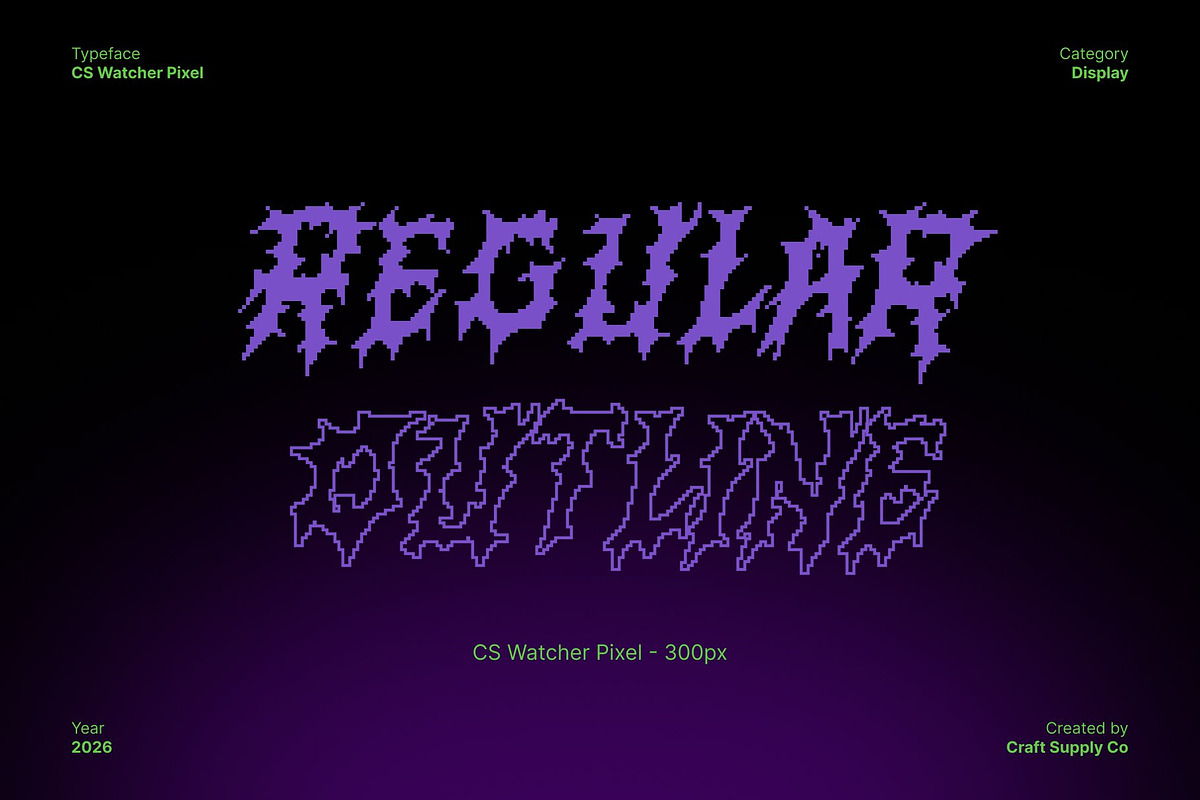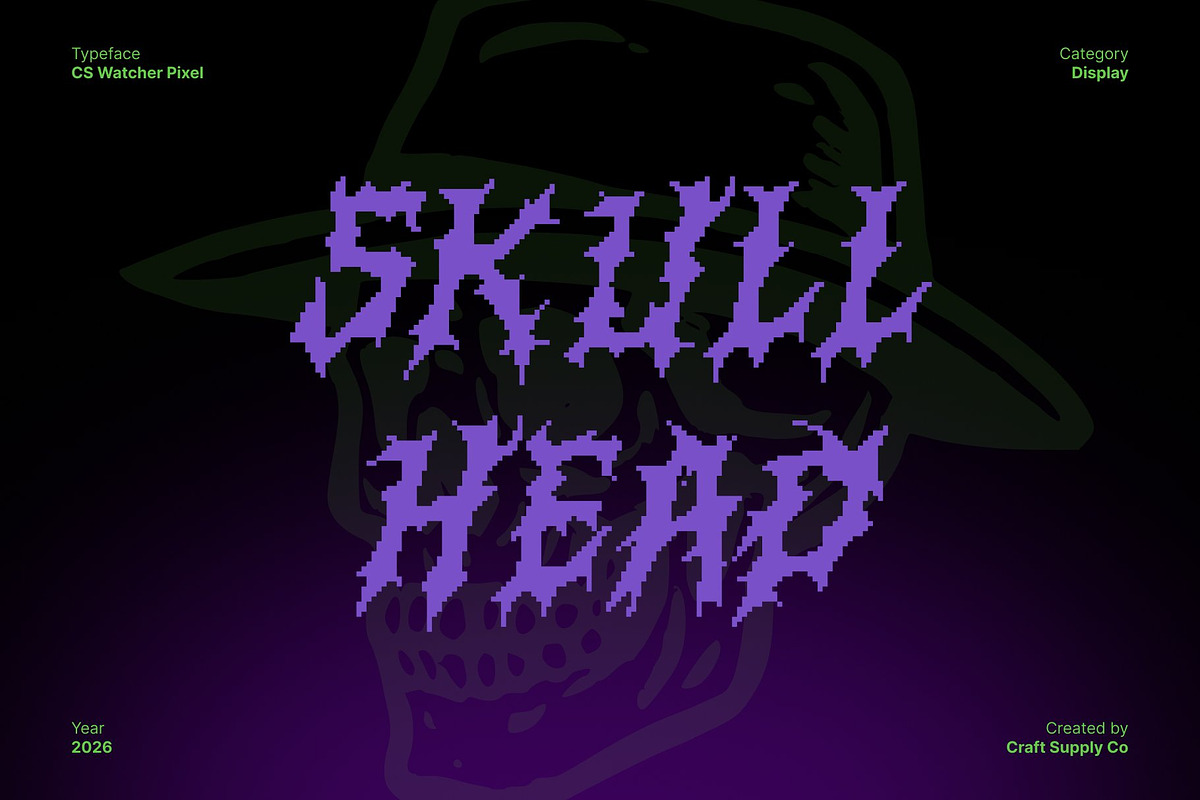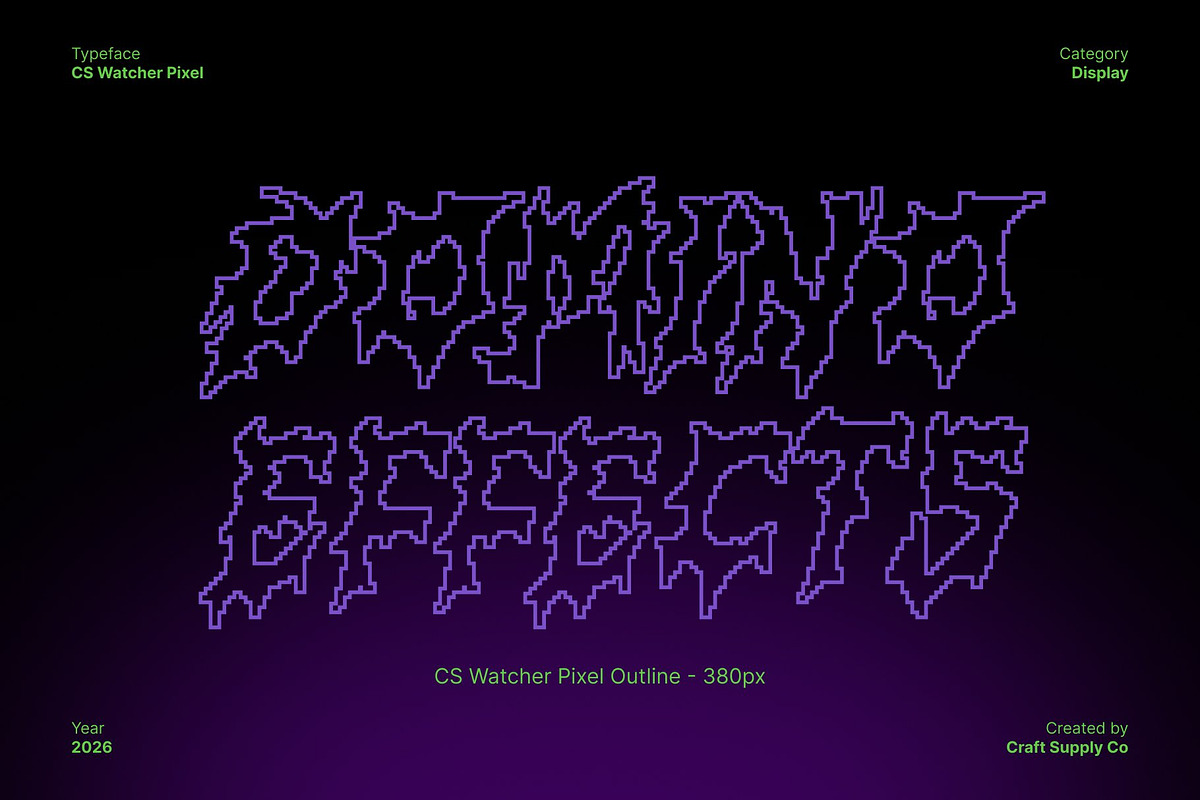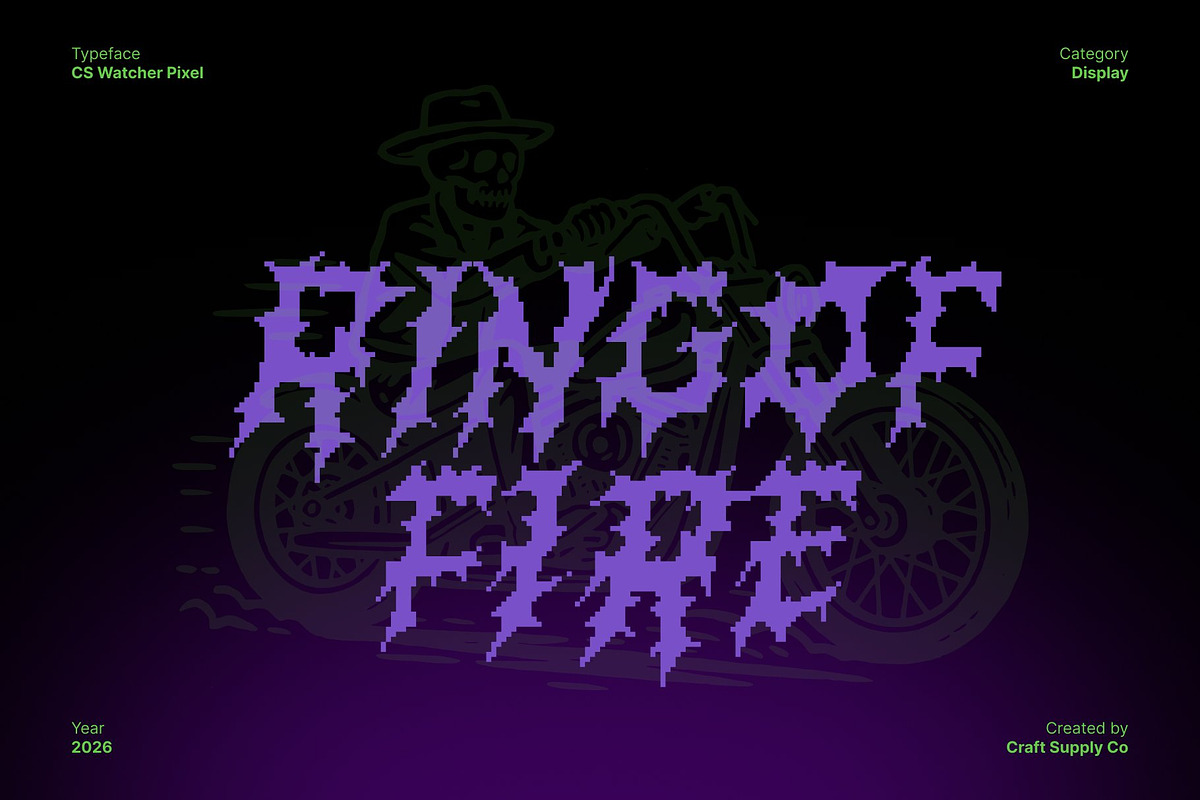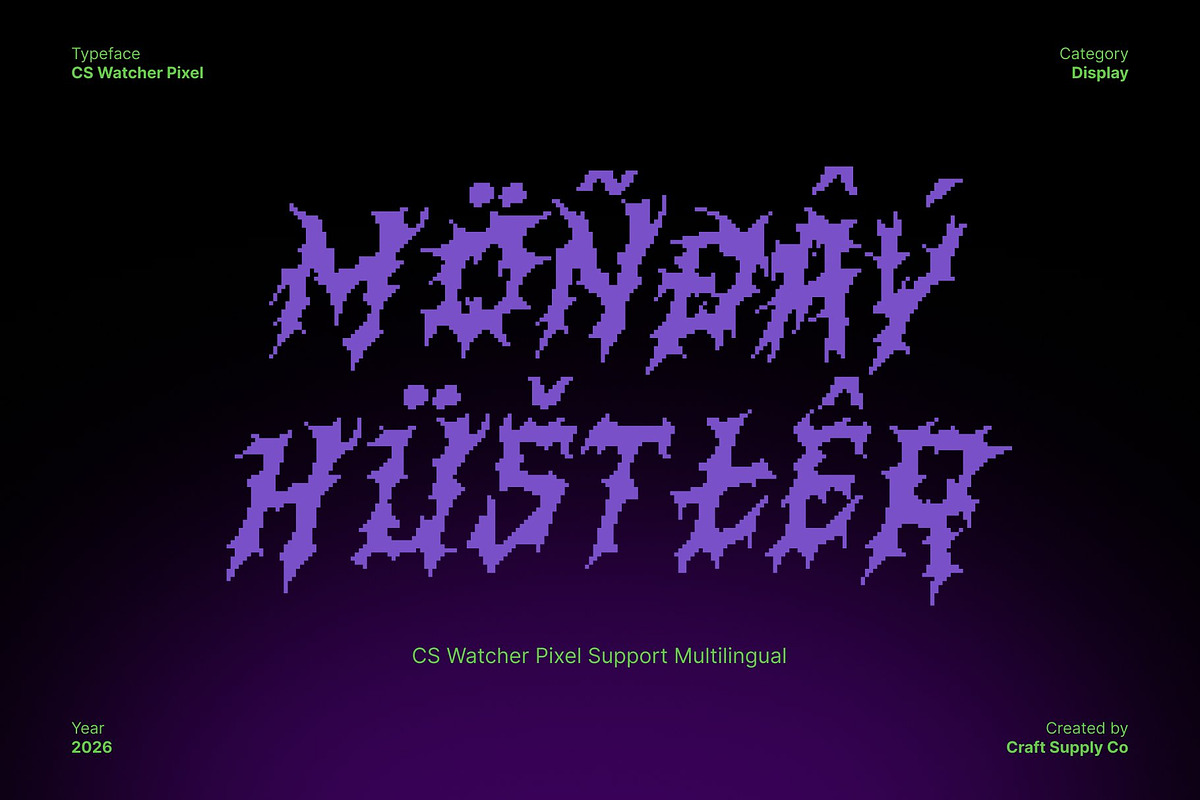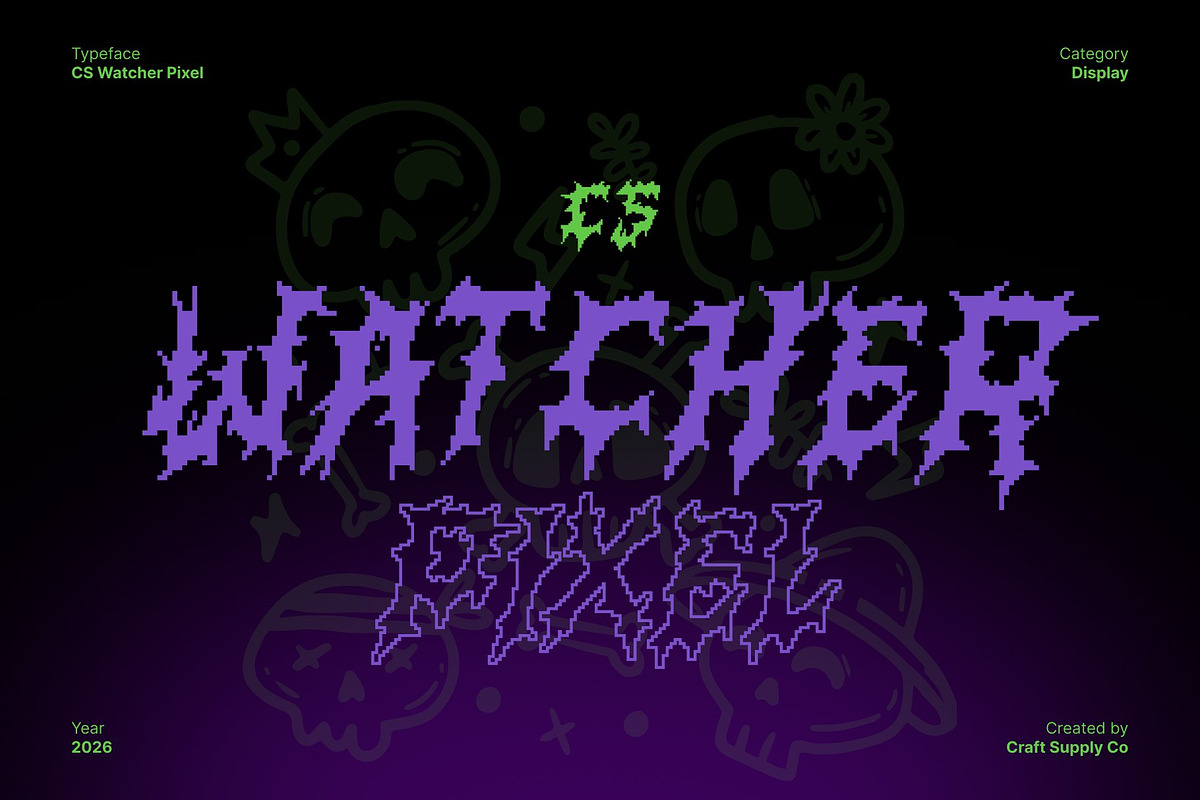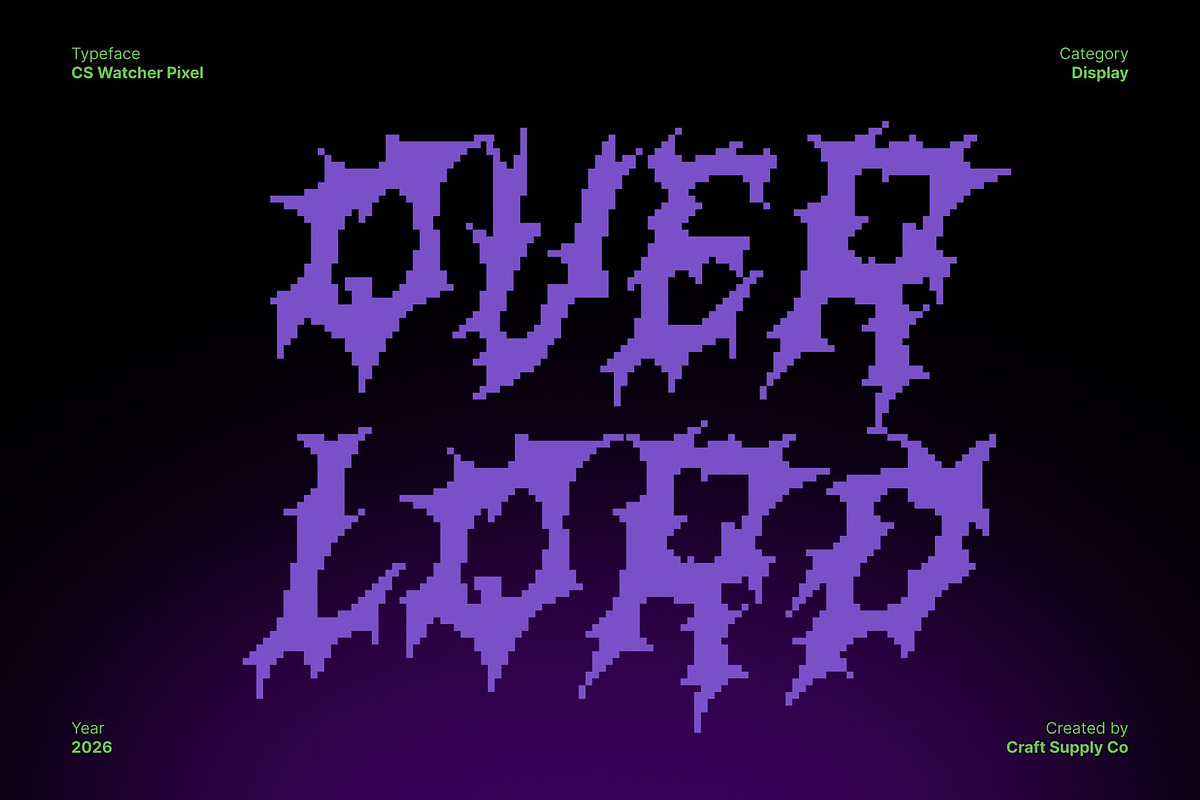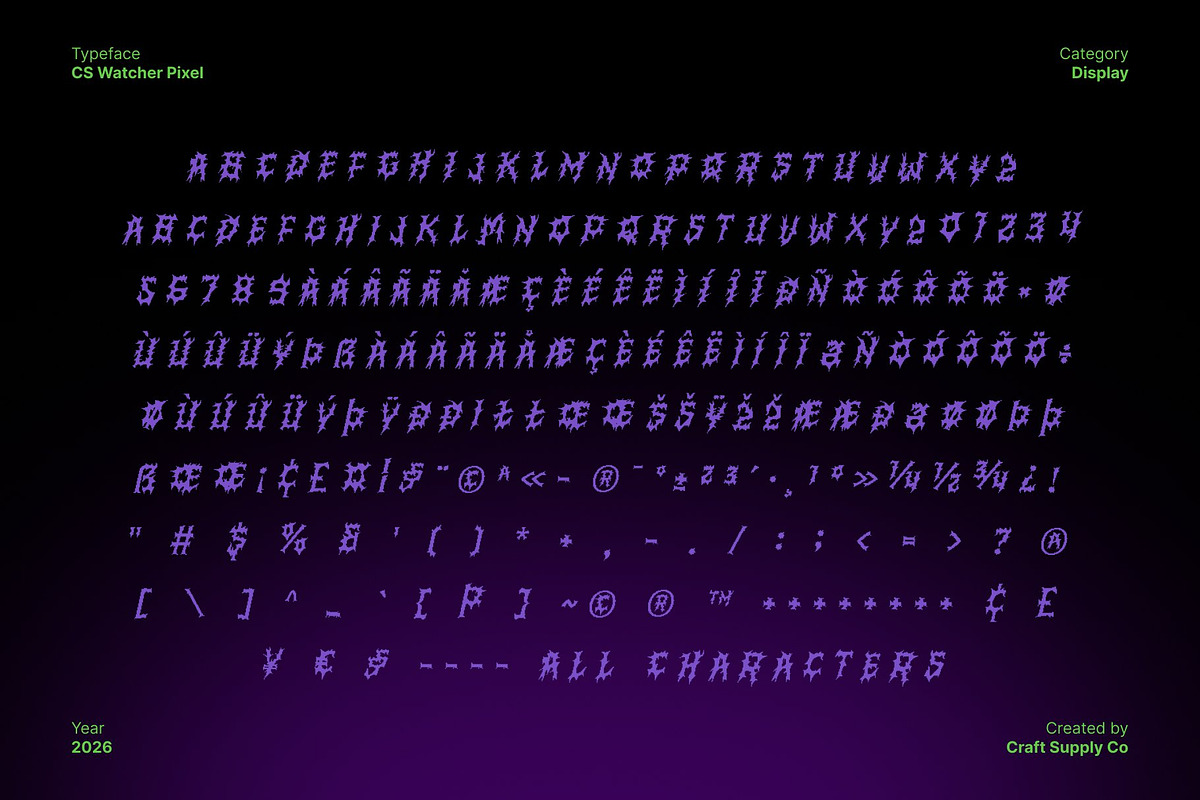
CS Watcher Pixel
CS Watcher Pixel – Black Metal Font: Where Chaos Meets Power
Raw Energy in Every Stroke This is a black metal display font forged in the depths of darkness and digital decay. Defined by jagged spikes, sharp pixelated edges, and chaotic strokes, it radiates aggression, hostility, and raw emotion. Built as a bitmap-style font, each letter channels the brutal intensity of extreme music through a rigid pixel structure, creating a visual language that feels harsh, uncompromising, and unapologetically dark.
Aggressive Pixel Design with Distinct Identity Every character carries a wild, hand-crafted rhythm translated into a harsh pixel grid. Irregular forms, broken angles, and spiked silhouettes create a sense of movement, danger, and instability perfectly capturing the essence of underground black metal aesthetics. The pixel construction adds a cold, digital brutality, reinforcing the font’s rebellious and anti-polished identity.
Perfect for Extreme, Dark, and Edgy Projects From band logos and album covers to music posters, dark-themed apparel, game visuals, and promotional artwork, delivers unmistakable visual impact. Its gritty bitmap texture and aggressive character make it ideal for projects that demand intensity, emotional weight,
Unleash Darkness, Noise, and Digital Chaos This is more than a font it is a visual anthem for rebellion, chaos, and artistic freedom. Embracing imperfection, distortion, and raw power, it transforms extreme music energy into typography. Use it to create designs that are not only seen but felt, embodying darkness, strength.